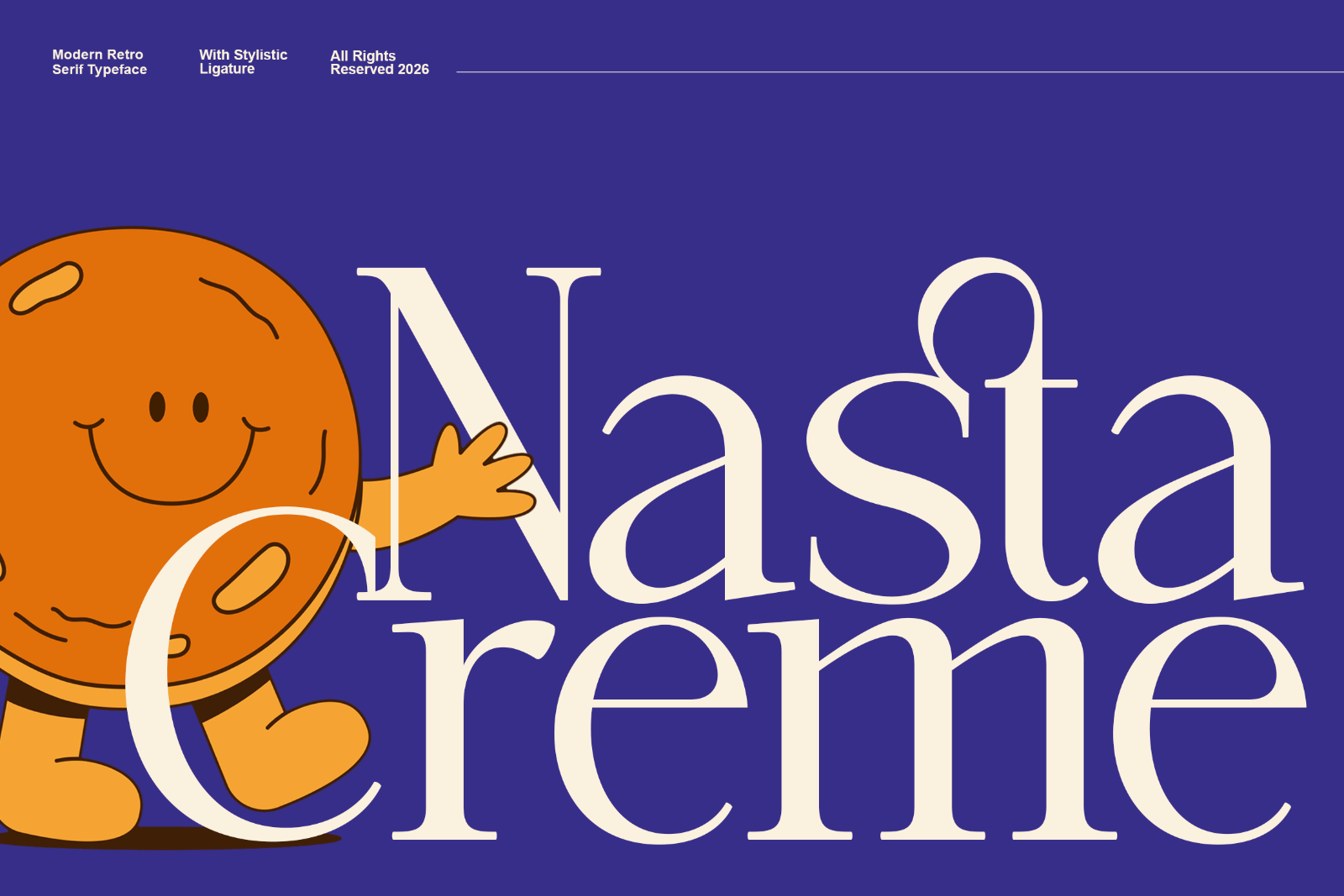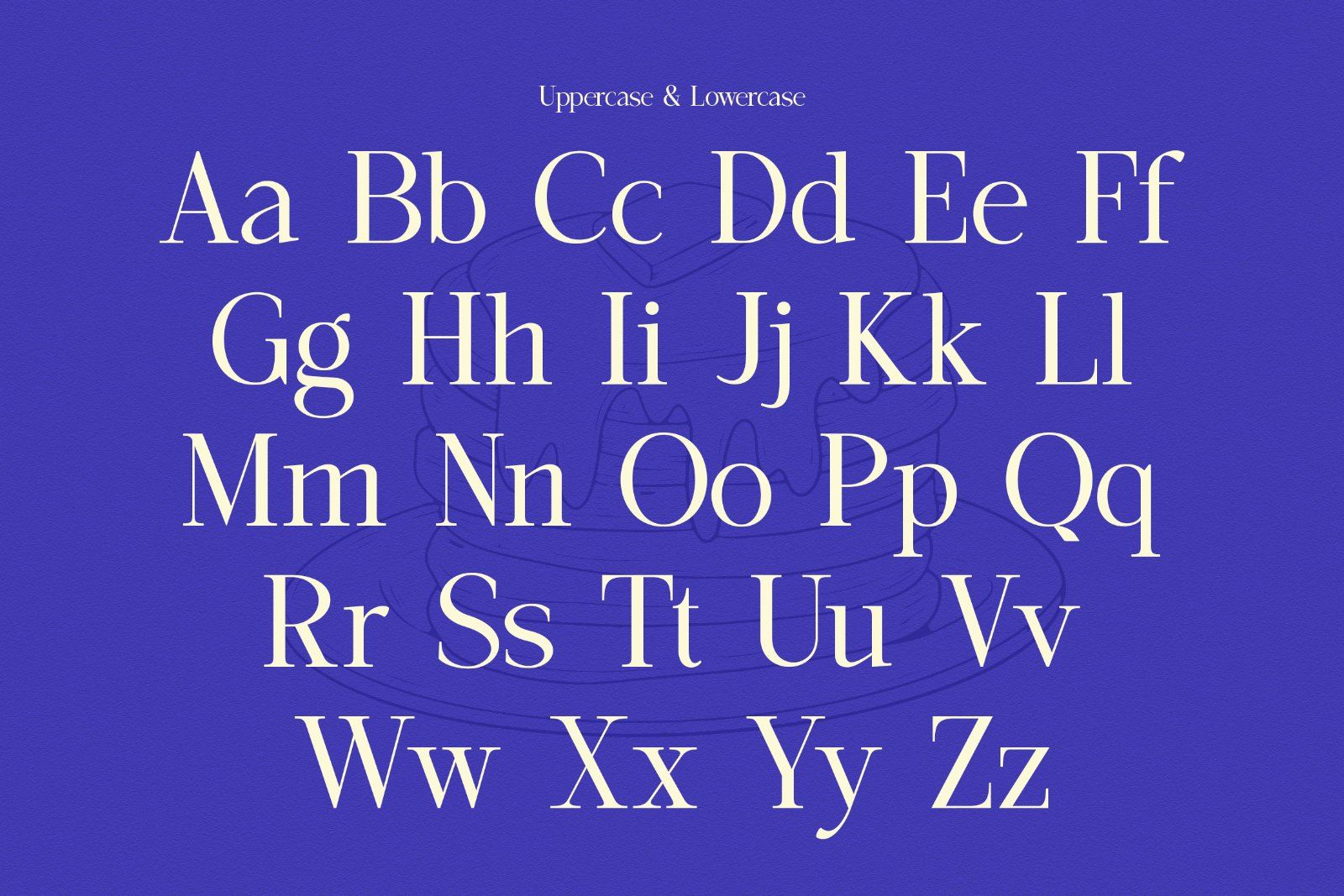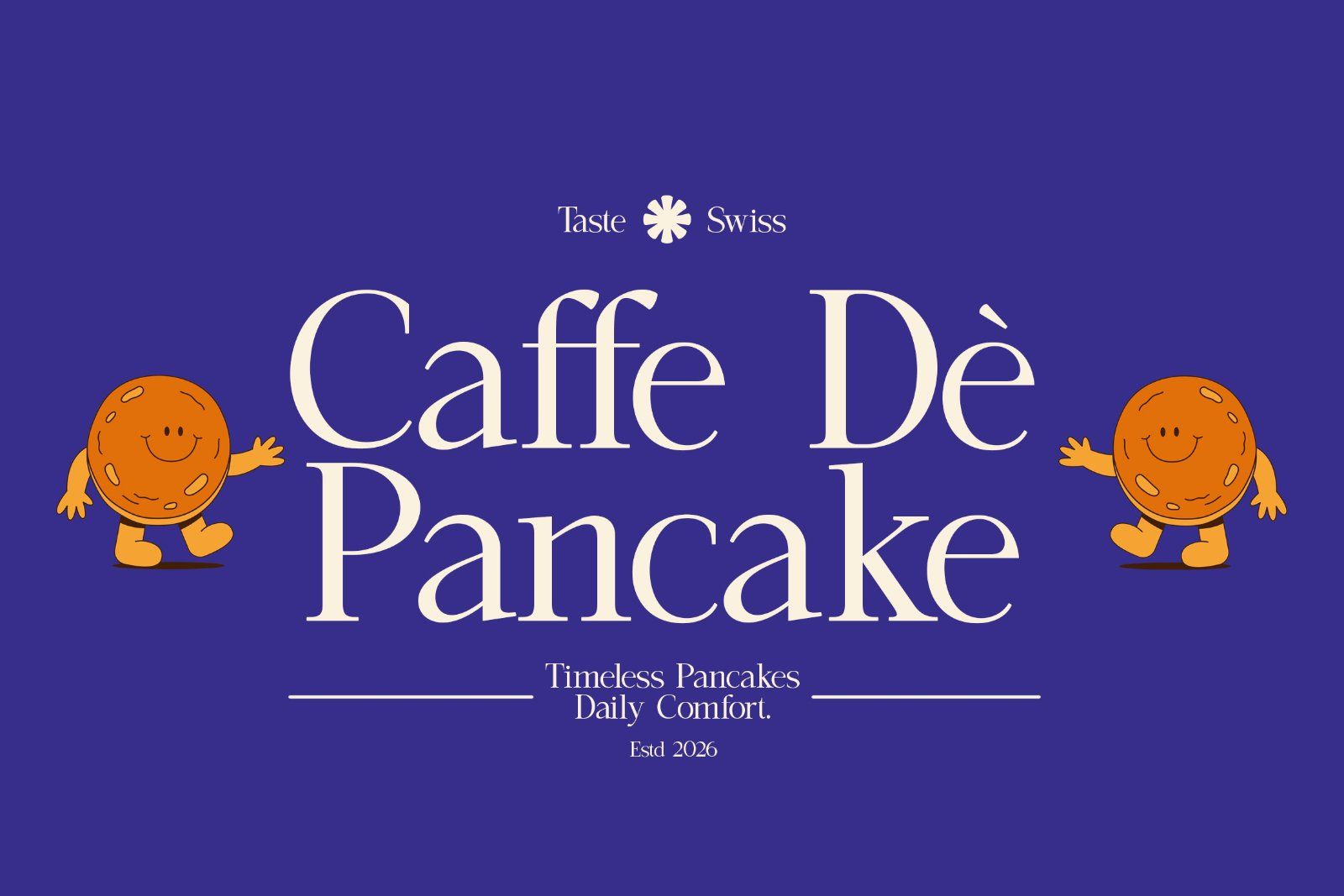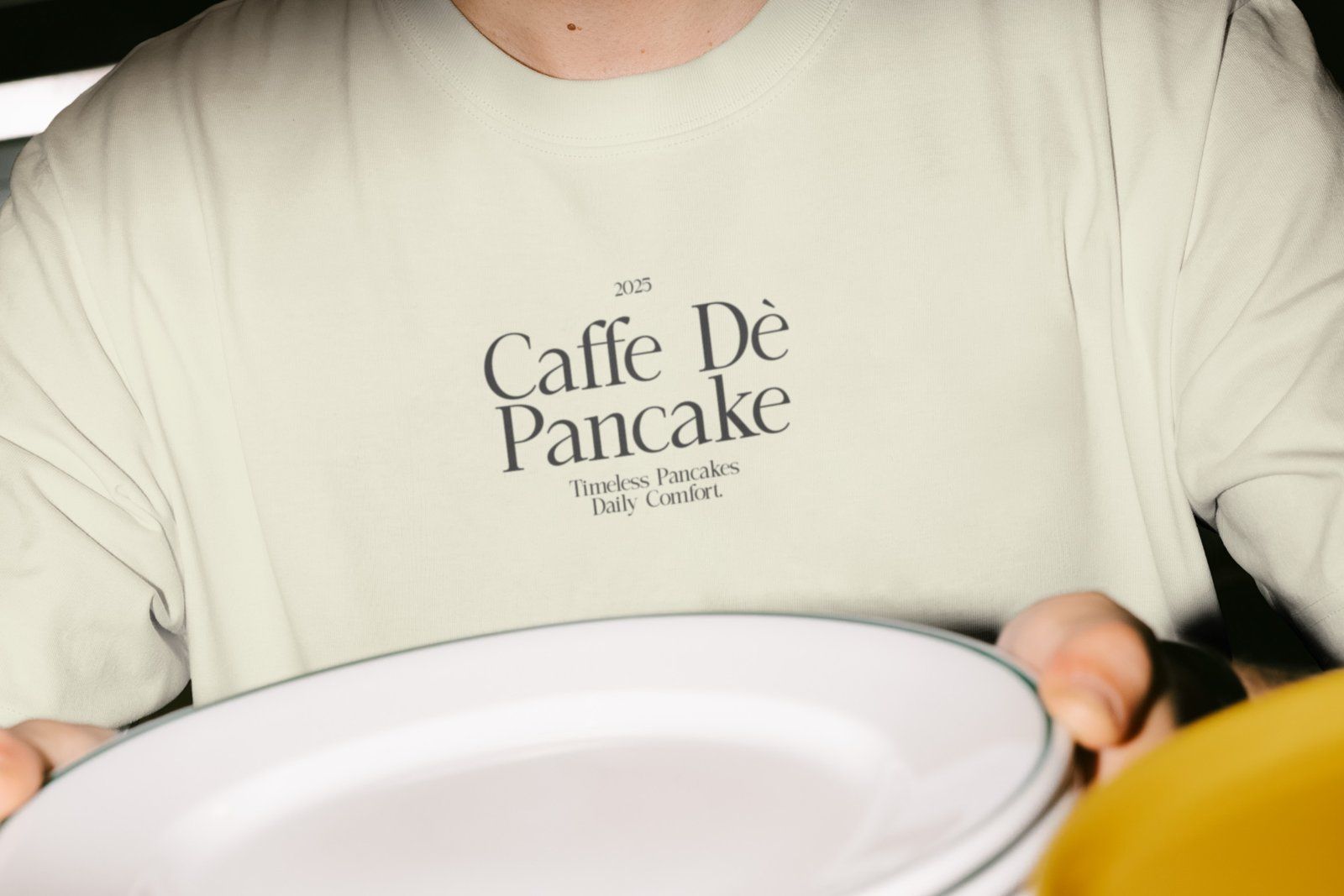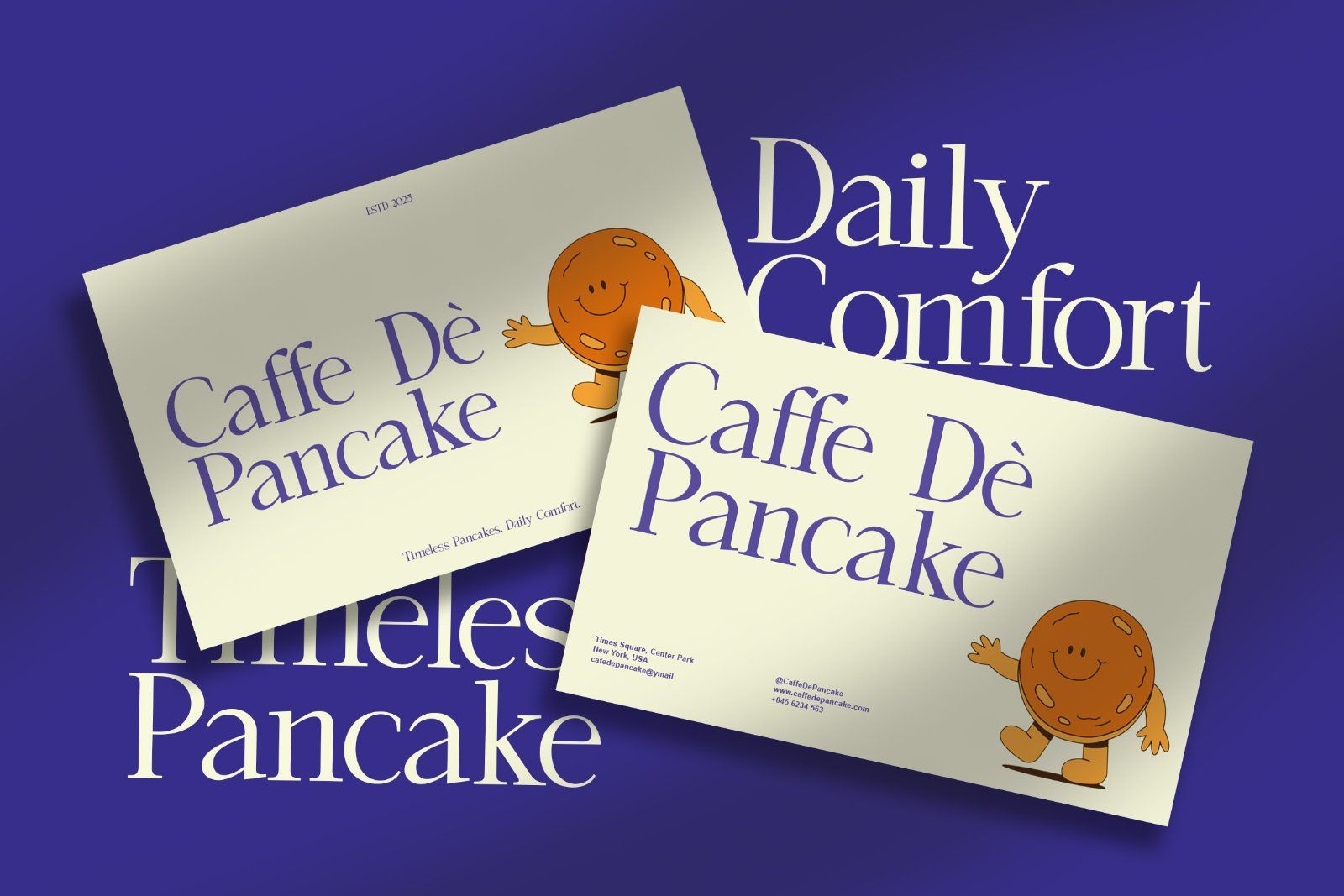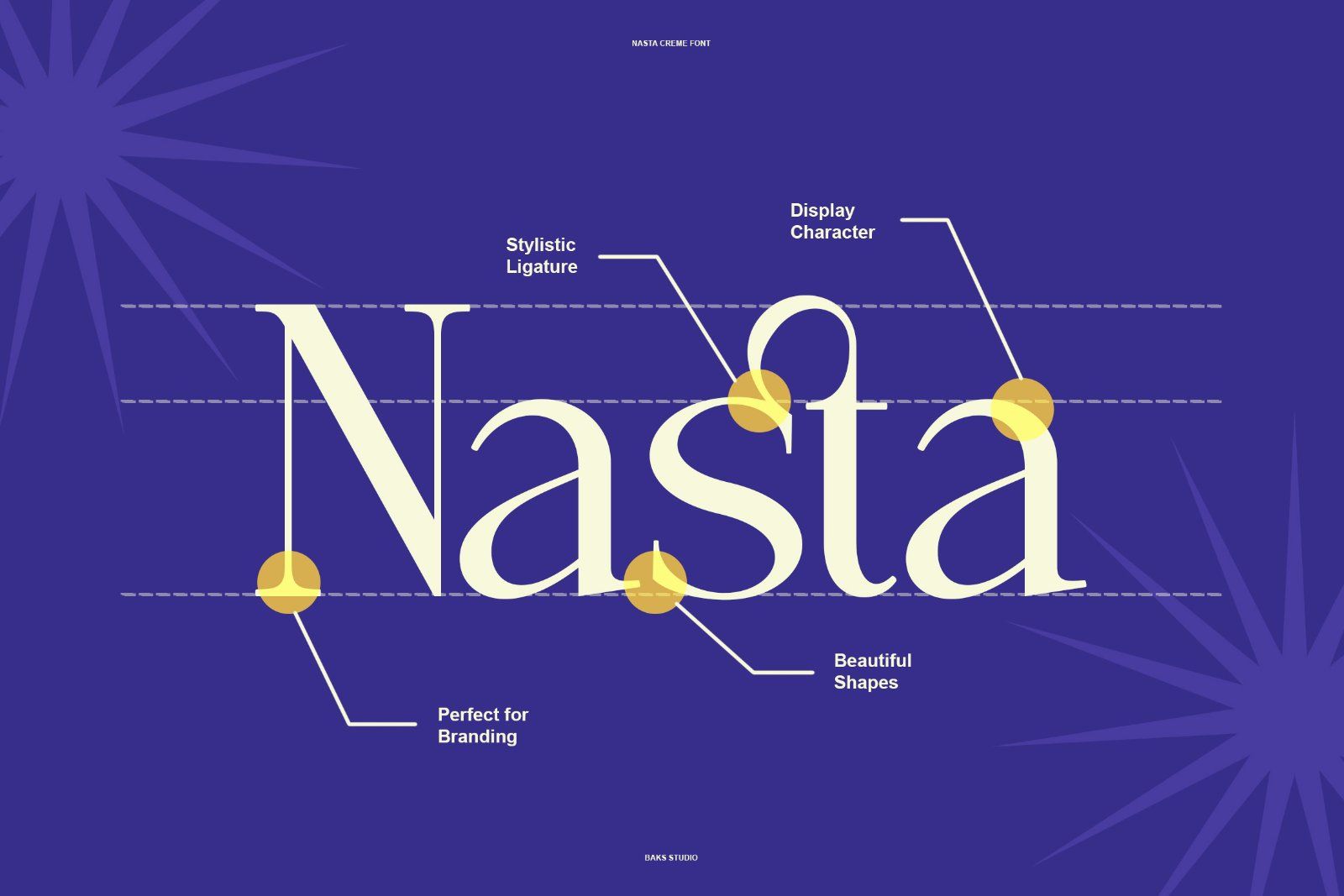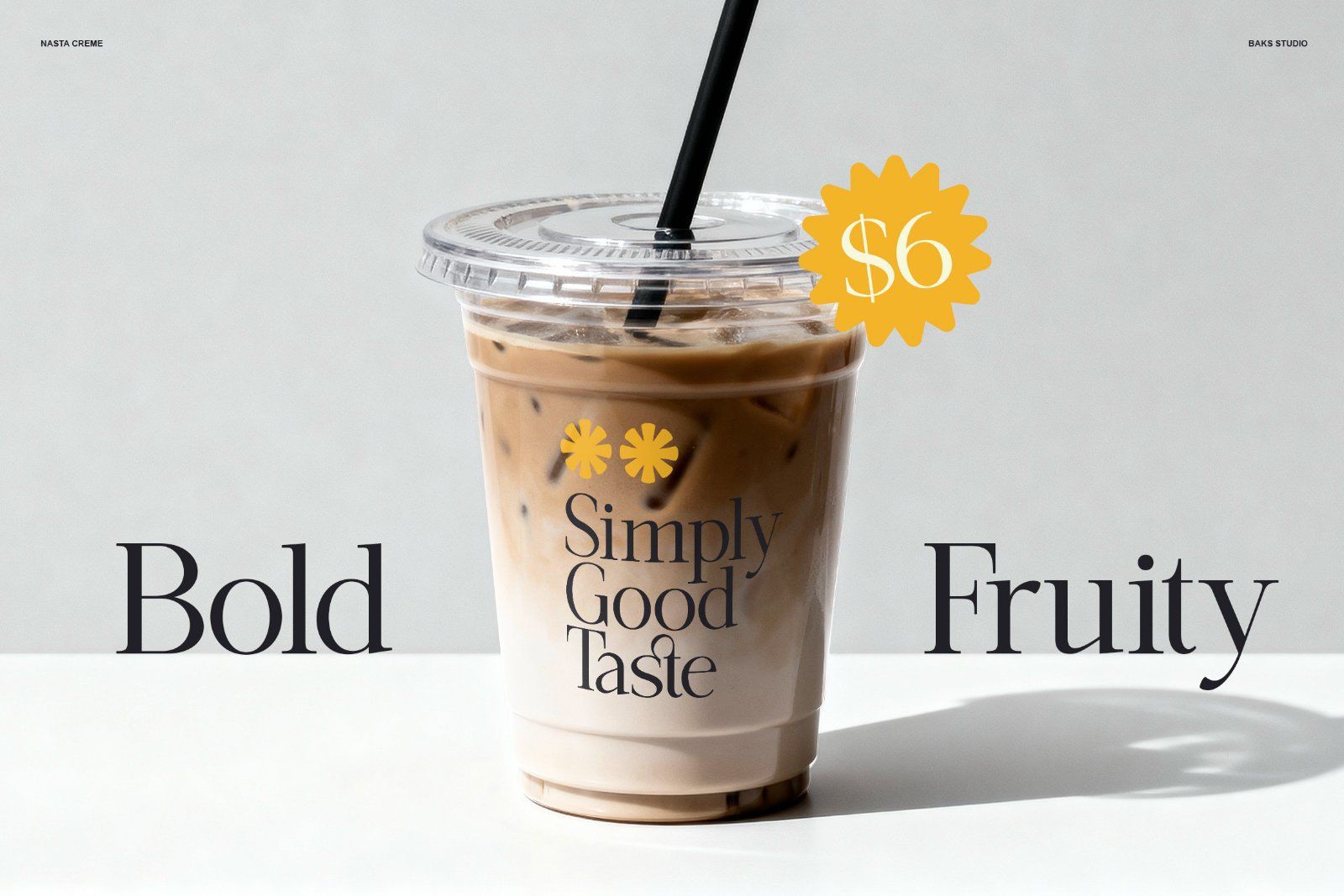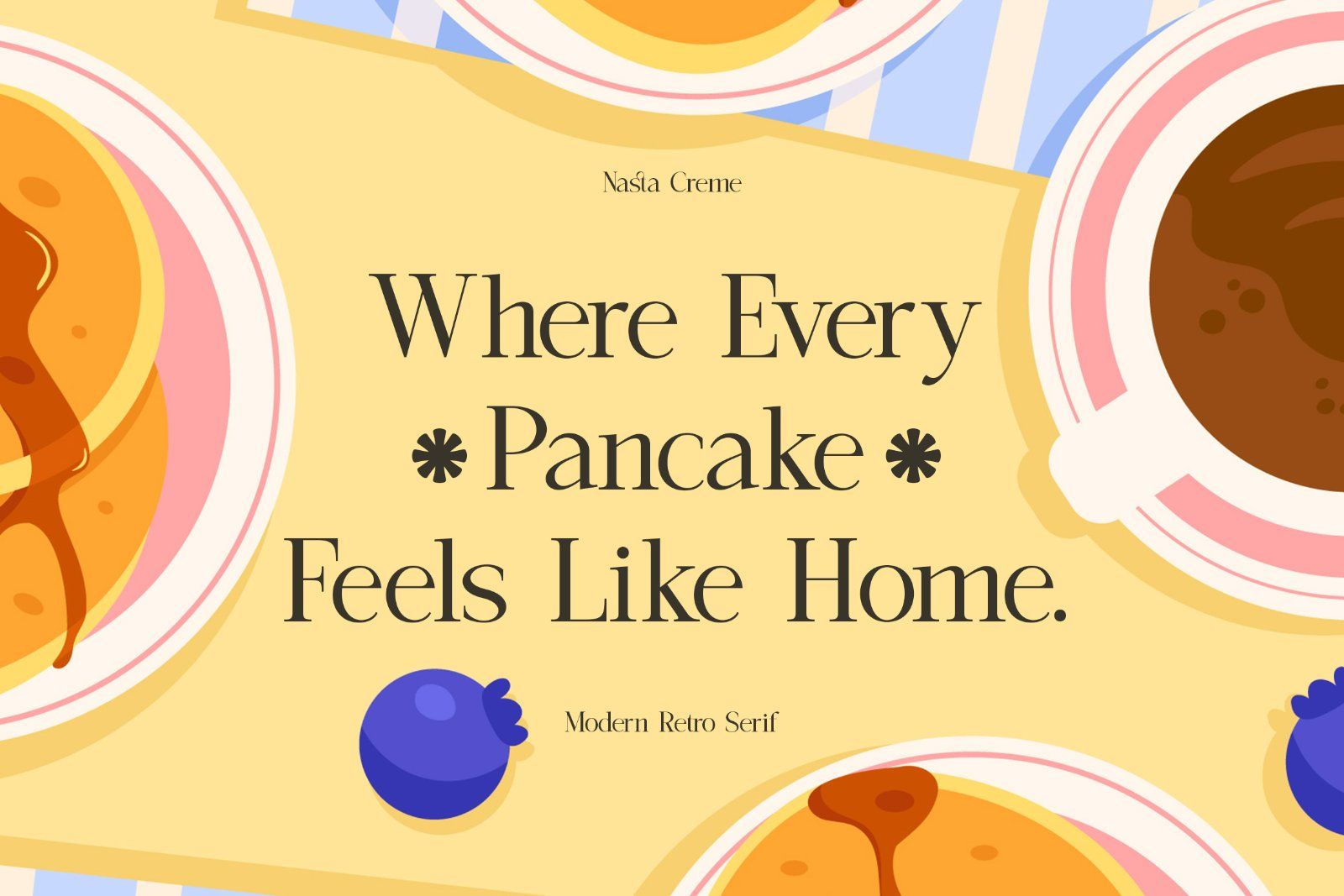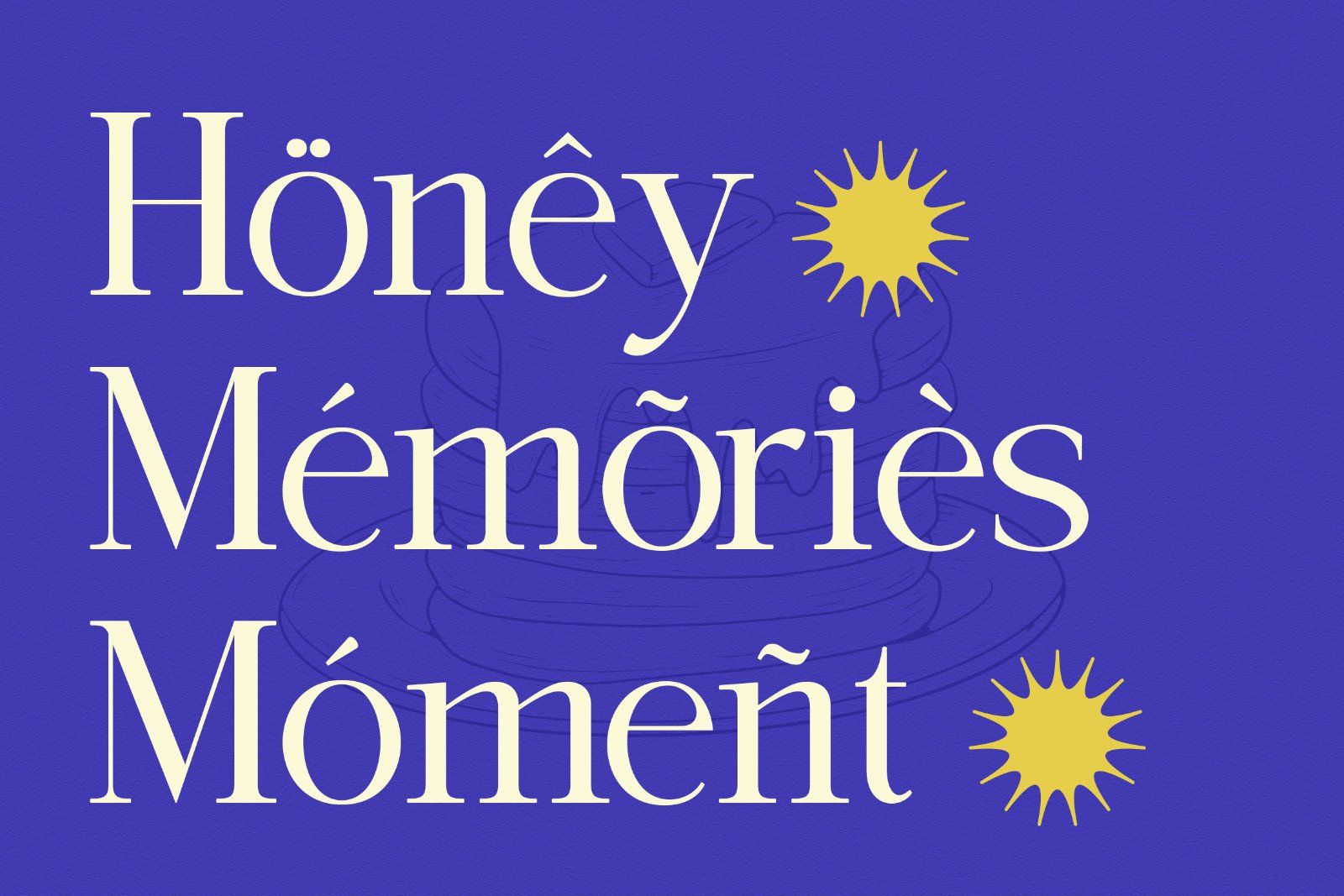
Nasta Creme, a Modern Retro Serif that captures the breezy, optimistic spirit of the 1970s while maintaining the clean execution required by modern digital standards. Featuring Stylistic Ligatures that dance across the baseline, Nasta Creme is engineered to turn simple words into custom looking lettering. The “Creme” in its name isn’t just for show the letterforms are smooth, organic, and possess a rhythmic flow that makes long headlines feel like art. It’s the perfect choice for brands that want to be approachable, trendy, and undeniably cool.